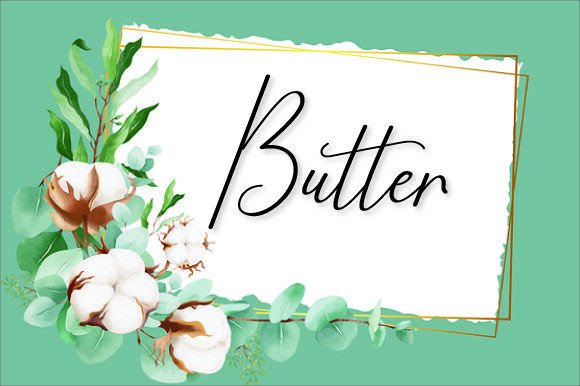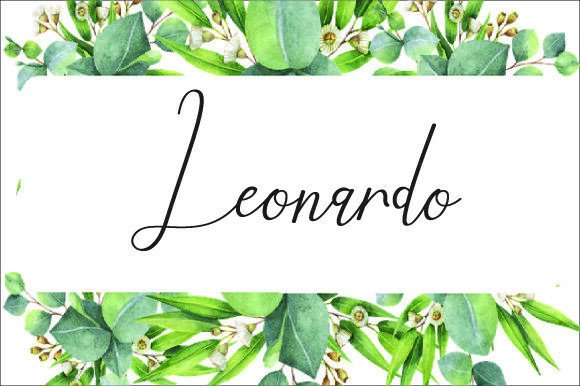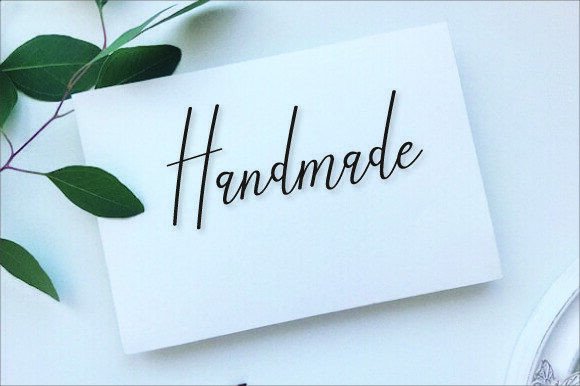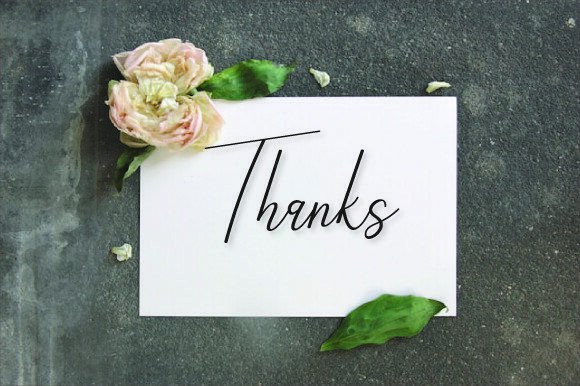
Introducing Burning Font: Elevate Your Designs with Elegance and Sophistication
Are you a designer or crafter looking for a font that exudes elegance and sophistication? Look no further than Burning Font, a stylish and incredibly elegant handwritten font that is sure to take your designs to the next level. With its beautiful, flowing script and versatile nature, Burning Font is perfect for a wide range of design projects, from wedding invitations and thank you cards to quotes, greeting cards, logos, business cards, and more.
The Perfect Font for Wedding and Event Designs
Wedding invitations, save the dates, and thank you cards are just a few examples of the many ways you can use Burning Font to add a touch of elegance to your wedding and event designs. The font’s beautiful, handwritten script is reminiscent of traditional calligraphy, but with a modern twist that makes it perfect for contemporary designs. Whether you’re designing for a formal, black-tie wedding or a more casual, outdoor event, Burning Font is sure to impress.
Add a Personal Touch to Your Designs
One of the things that sets Burning Font apart from other fonts is its personal, handwritten feel. The font is designed to look like it was written by hand, with subtle imperfections and variations in letter size and spacing that give it a unique, organic feel. This makes it perfect for designs where you want to add a personal touch, such as quotes, greeting cards, and thank you cards.
Versatile and Easy to Use
In addition to its use in wedding and event designs, Burning Font is also perfect for logos and branding. The font’s elegant, sophisticated script is sure to make your brand stand out, and its versatility makes it suitable for use in a variety of industries, from fashion and beauty to food and drink. Whether you’re looking to create a logo, business card, or website, Burning Font is a great choice.
Tips for Using Burning Font
In conclusion, Burning Font is a stylish and incredibly elegant handwritten font that is perfect for designers and crafters looking to add a touch of sophistication to their designs. With its beautiful, flowing script and versatile nature, Burning Font is suitable for use in a wide range of design projects, from wedding invitations and thank you cards to logos, business cards, and more. Whether you’re a seasoned designer or just starting out, Burning Font is a great addition to your font library.